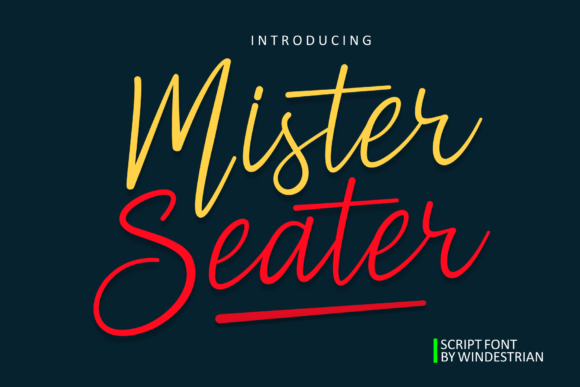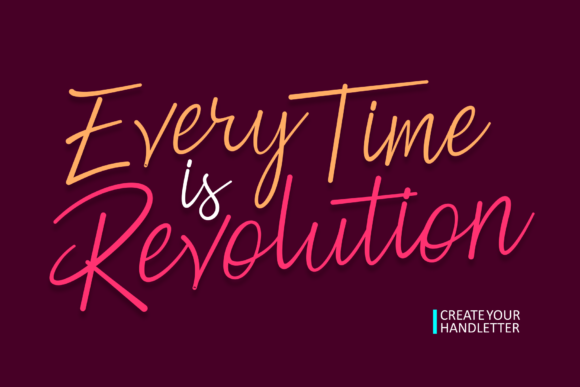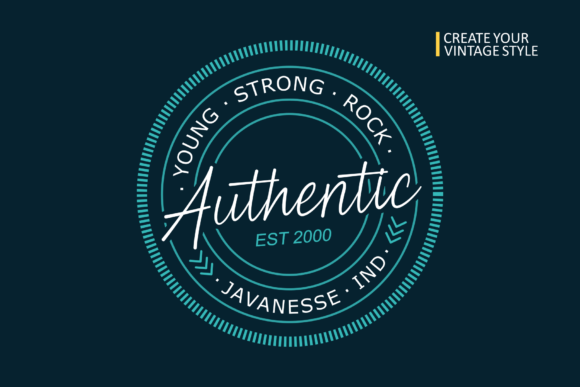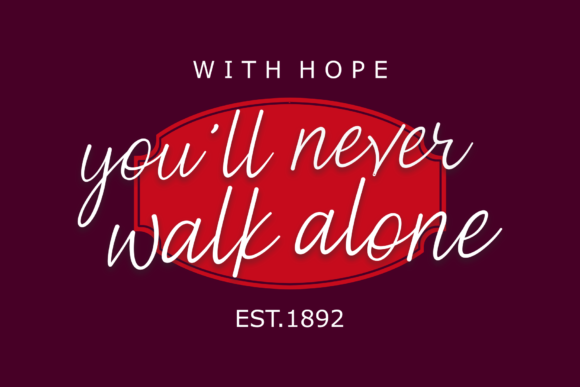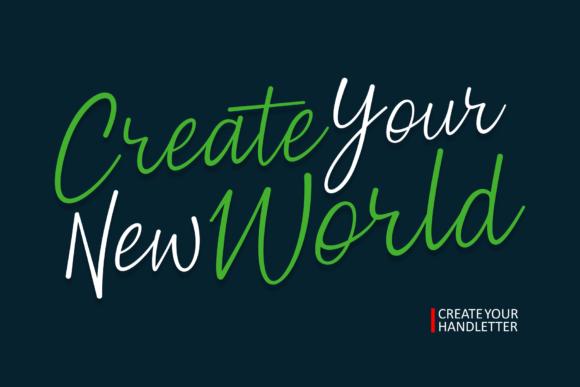
Mister Seater Font
About Mister Seater Font
Mister Seater is an incredibly authentic and playful script font that will turn any design idea into a true standout.